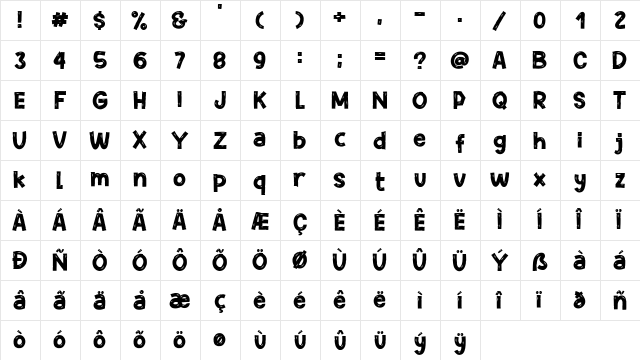
Potato Chips Regular
Design Context for Potato Chips Typeface
Potato Chips is a composed and adaptable typeface that performs quietly and consistently across a wide range of design contexts.